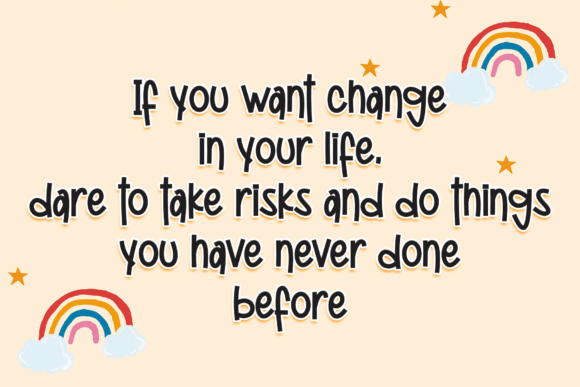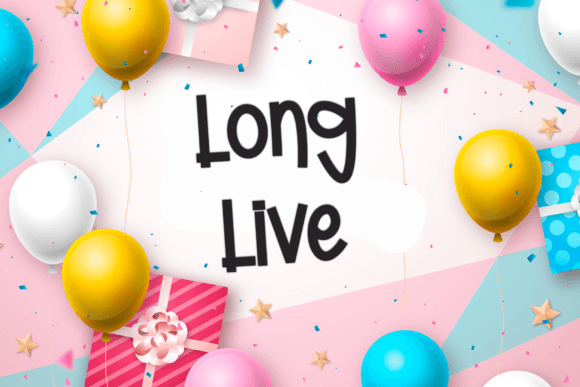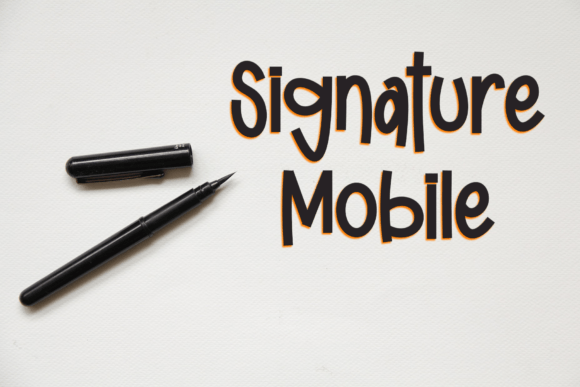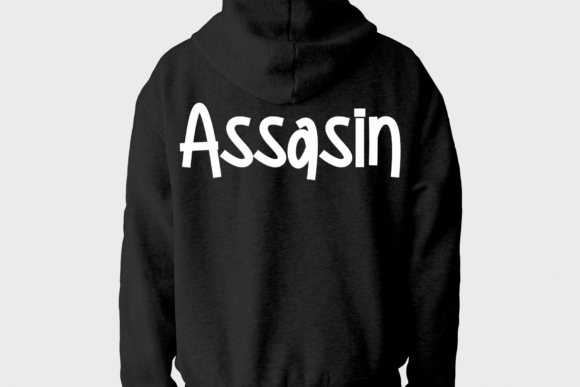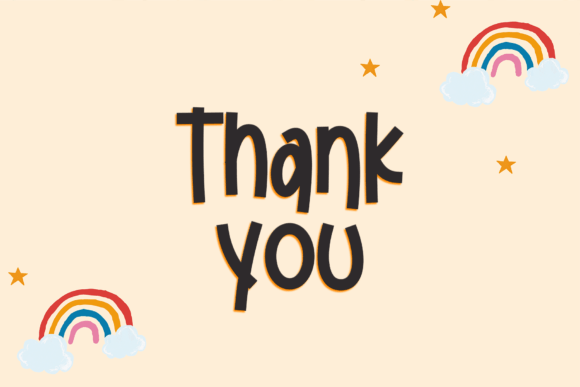
Introducing Happy Birthday Font: Elevate Your Designs with Elegance
Are you searching for the perfect font to add a touch of sophistication to your designs? Look no further than the Happy Birthday Font, a magical display font designed to bring elegance and style to your creative projects. Whether you’re a designer, crafter, or DIY enthusiast, this font is sure to impress.
A Font that Adds a Touch of Magic to Your Designs
Happy Birthday Font is carefully crafted to give your designs a unique and artistic flair. Its elegant and refined appearance makes it perfect for a variety of applications, from social media graphics and invitations to DIY projects and craft designs. With this font, you can turn any creative idea into a true piece of art.
As a designer or crafter, you’re always on the lookout for fonts that can help you create stunning and professional-looking designs. Happy Birthday Font is designed with you in mind. Its versatility and elegance make it suitable for a wide range of design projects, including:
- Social media graphics: Add a touch of elegance to your Instagram posts, Facebook graphics, and other social media designs.
- Invitations and announcements: Create beautiful and sophisticated invitations for special occasions, such as birthdays, weddings, and graduations.
- DIY projects: Use Happy Birthday Font to add a personal touch to your DIY projects, such as handmade cards, gift tags, and decorations.
- Calligraphy scripts: This font is perfect for calligraphy scripts, adding a touch of elegance and sophistication to your hand-lettered designs.
Key Features of Happy Birthday Font
So, what makes Happy Birthday Font so special? Here are some of its key features:
- Elegant and refined appearance: This font is designed to add a touch of sophistication to your designs.
- Magical display font: Happy Birthday Font is perfect for headlines, titles, and other display text.
- Versatile: Suitable for a wide range of design projects, from social media graphics to DIY projects.
Tips and Tricks for Using Happy Birthday Font